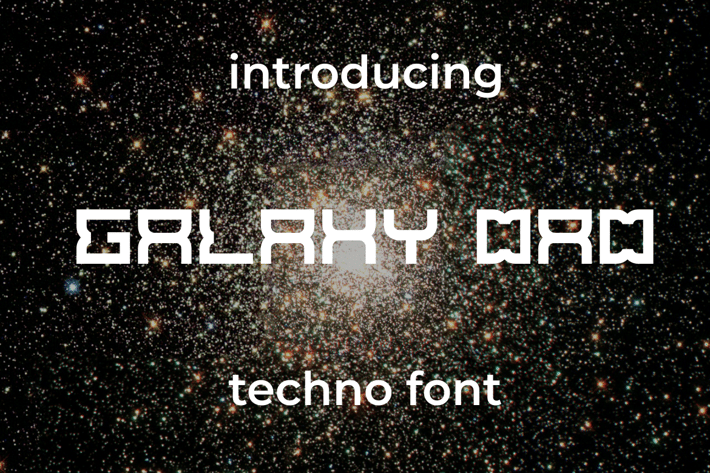
Galaxy OAO Font
Introducing our new product Galaxy Oao Font - Modern Font
Galaxy Oao Font - Modern Font is a bold and authentic display font. The font is suitable for any branding project like logo, t-shirt printing, esport, and many more. outstanding in a wide range of contexts.